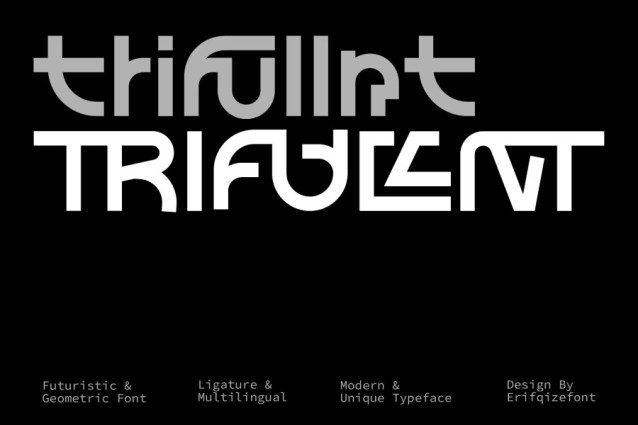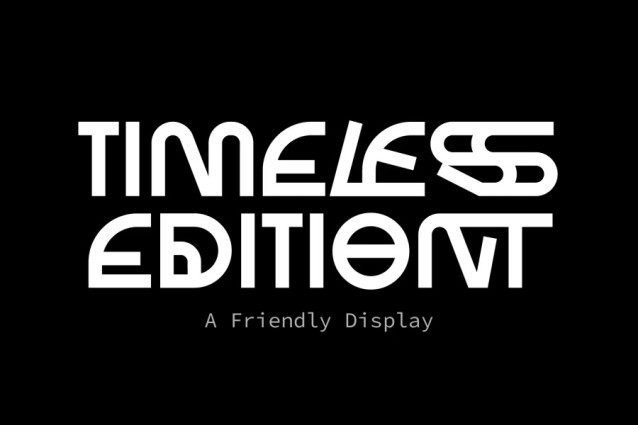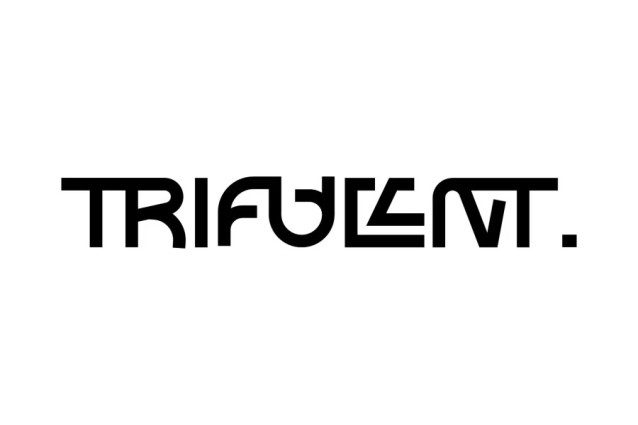
Trifullnt Font is a bold and futuristic display font crafted for the modern technology era. With its symmetrical geometric design and sharp precision, it radiates a sense of innovation and high-tech aesthetics.
Featuring 40 unique ligatures, TRIFULLNT brings smooth connectivity between characters, creating a sleek and dynamic visual flow — perfect for tech branding, digital interfaces, logos, and sci-fi-inspired titles.
Its distinctive letterforms and modern structure make it ideal for projects that demand a clean, professional, and cutting-edge look.